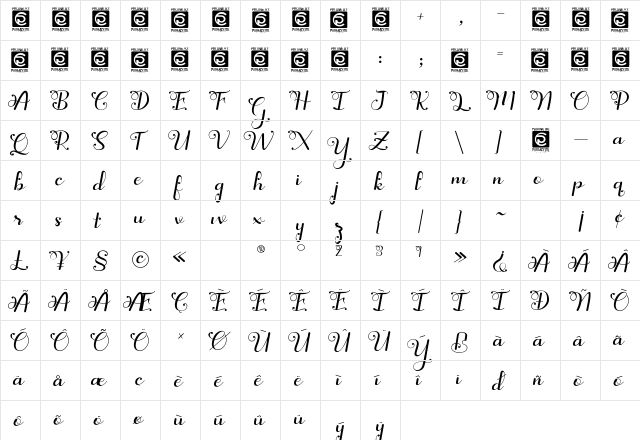
Yuanita Personal Use Regular
| Foundry | Putracetol Studio, Karanganyar. |
| Designer | Putra Novembria Candra Kusuma |
Design Context for Yuanita Personal Use Typeface
Yuanita Personal Use is a composed and adaptable typeface that performs quietly and consistently across a wide range of design contexts.